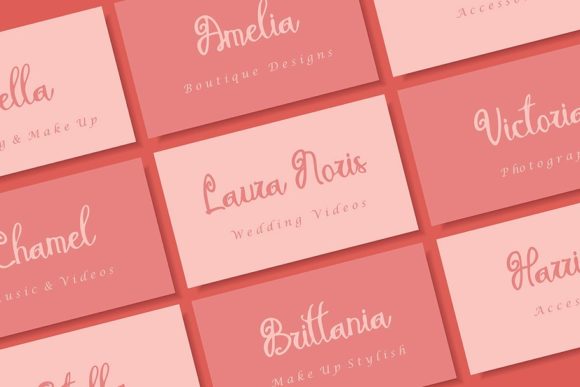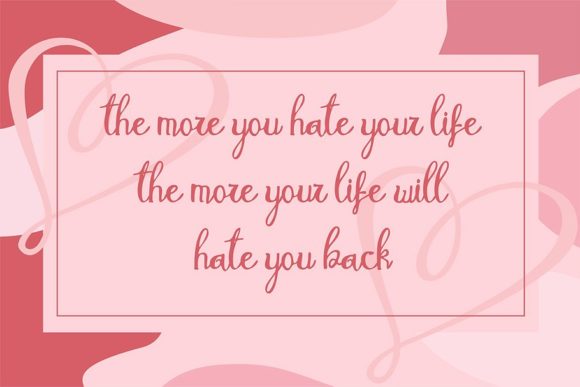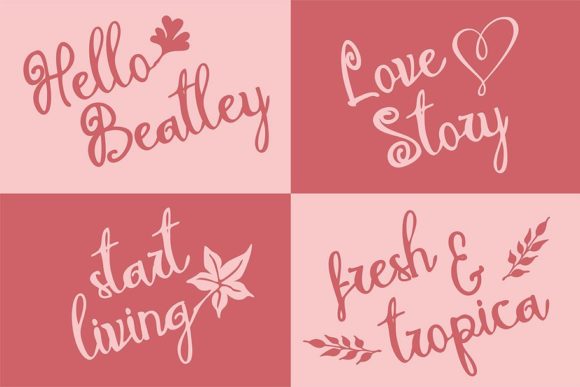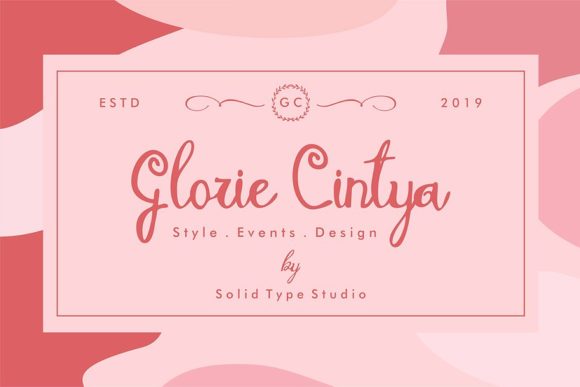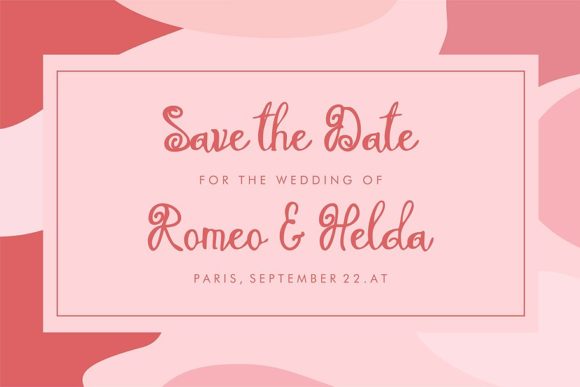
HomeScript FontsMelodina Script Font Script Fonts Melodina Script Font FacebookXPinterestWhatsApp Melodina Script Font Poster 2 Melodina Script Font Poster 3 Melodina Script Font Poster 4 Melodina Script Font Poster 5 Melodina Script Font Poster 6 Melodina Script Font Poster 7 About Melodina Script Font Melodina is a bold and charming script font with a unique feel. Fall in love with its modern elegance. DOWNLOAD NOW People also explored Genta Font Bronetto Font Oakblush Font Auckland Script Font Sweetness Font Georgia Angely Font Pumpkin Font Myristica Font Million 340 0 TagsMelodina Script Font Previous articleMalutik FontNext articlePassionate Message Font LEAVE A REPLY Cancel reply Comment: Please enter your comment! Name:* Please enter your name here Email:* You have entered an incorrect email address! Please enter your email address here Website: Save my name, email, and website in this browser for the next time I comment. Personal Use Free Alligator Font Personal Use Free Read more about this font Green Farmhouse Personal Use Free Read more about this font Evensong Hollow Personal Use Free Read more about this font Hubbies Personal Use Free Read more about this font BLOG How to Install and Use Fonts on Windows, macOS, and Web Projects How to Install and Use Fonts on Windows, macOS, and Web Projects Fonts are a crucial part of design and branding. Whether you’re designing a... Using Fonts in Digital Marketing: Tips to Strengthen Your Brand Identity How to Cut Any Font on Cricut: Convert a Font to SVG (Free) Top 7 Google Fonts Alternatives for Faster and Privacy-Friendly Web Design (2025)